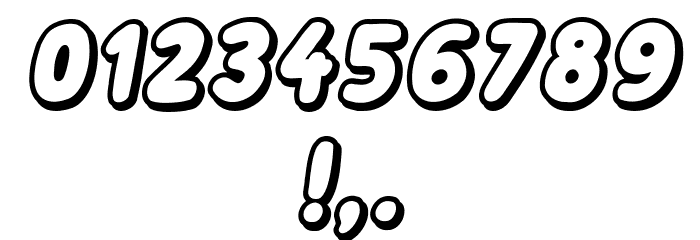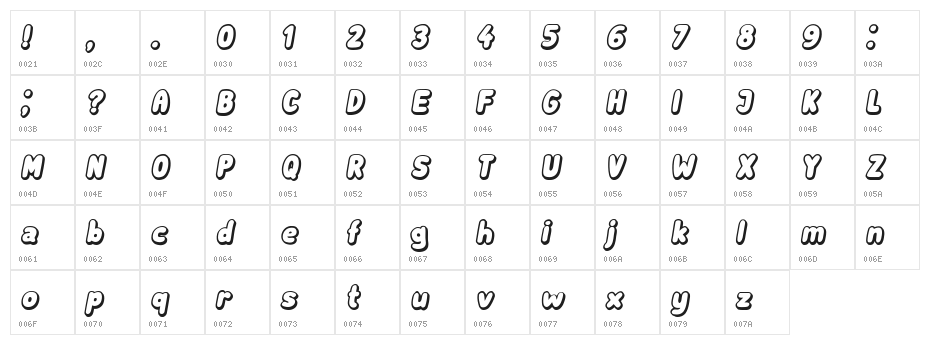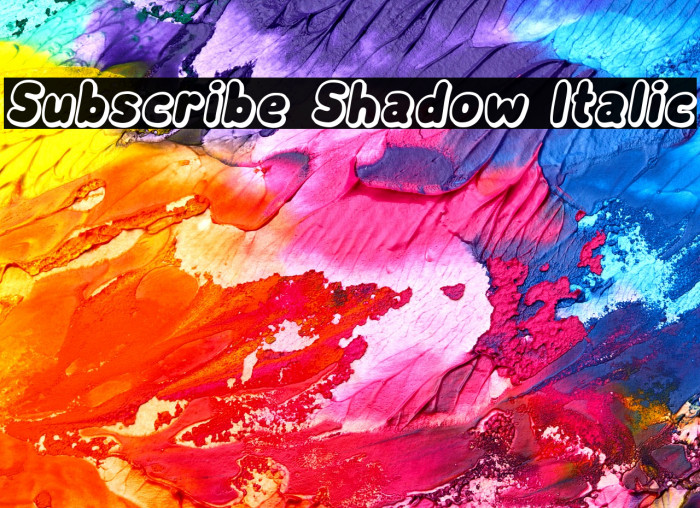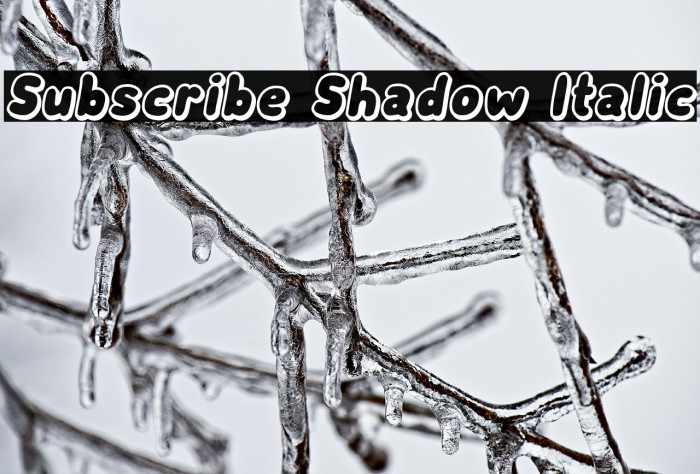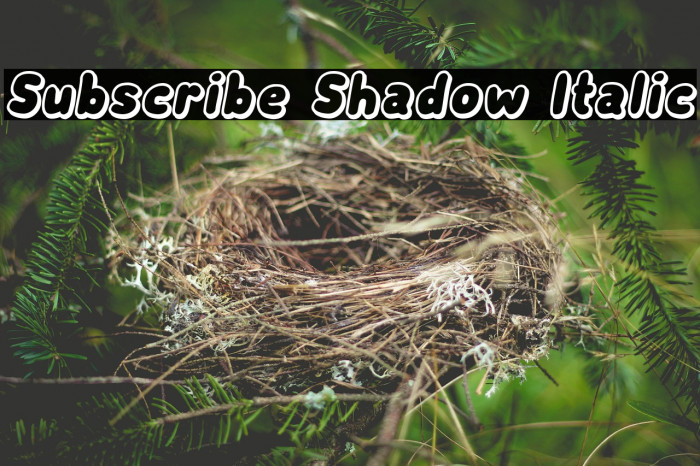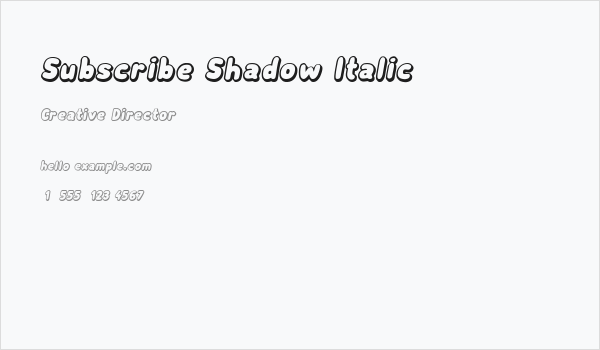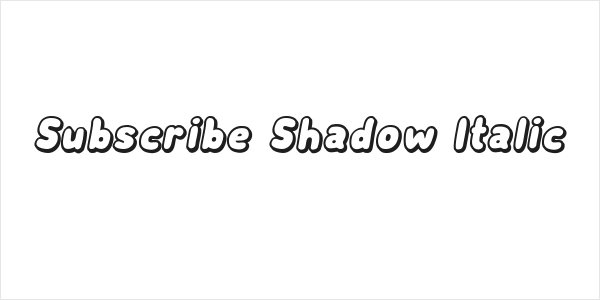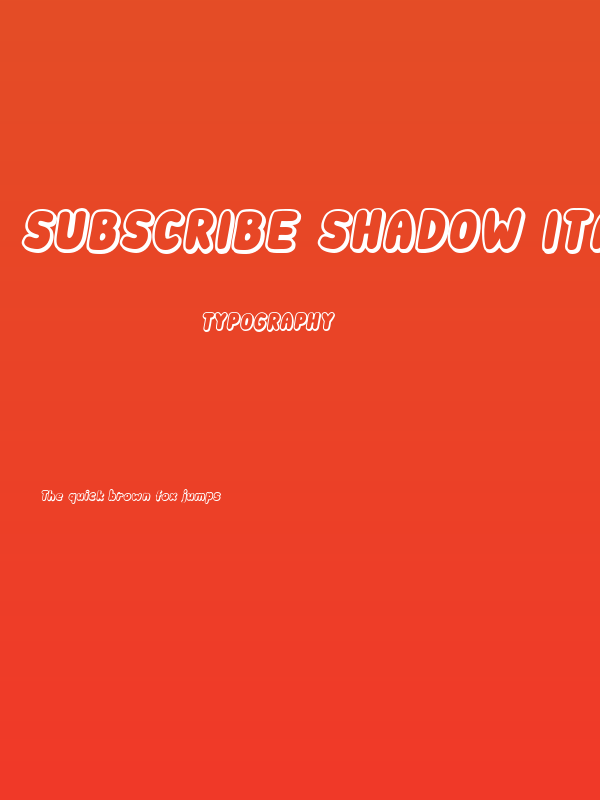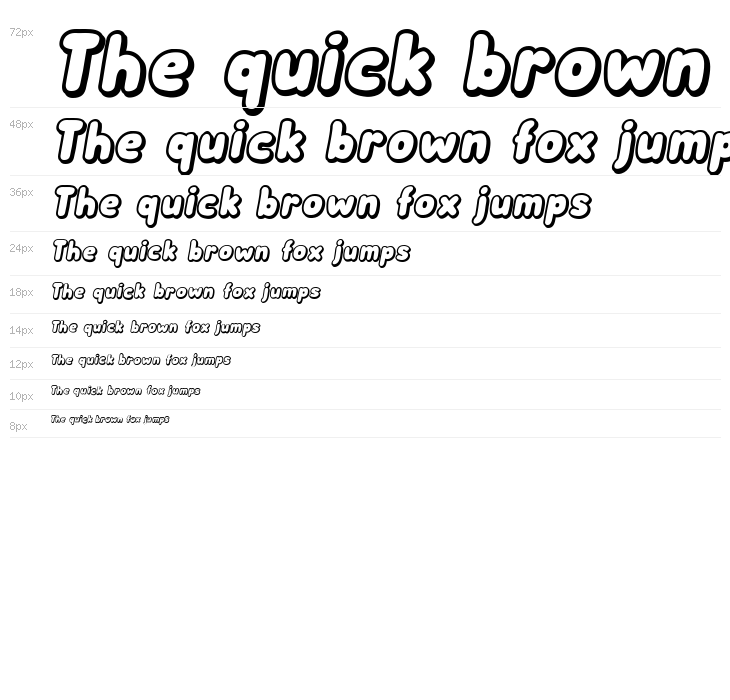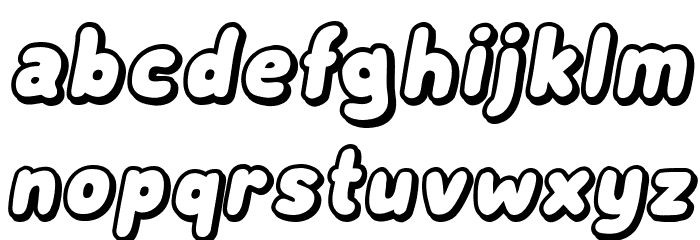
Subscribe Shadow Italic Font
Subscribe Shadow Italic Description
This playful and bold font features a shadow effect that adds depth and dimension to each character. The rounded edges and thick strokes give it a friendly and approachable appearance, making it ideal for designs that aim to capture attention and convey a sense of fun. The uppercase and lowercase letters maintain a consistent style, while the numbers and special characters complement the overall aesthetic. The shadow effect is subtle yet effective, providing a sense of movement and energy. This font is perfect for projects that require a lively and dynamic touch, such as children's books, posters, or branding for playful products.
| Overall Style | Playful, Fun |
| Proposed Projects | Ideal for children's books, playful posters, and branding for fun products. |